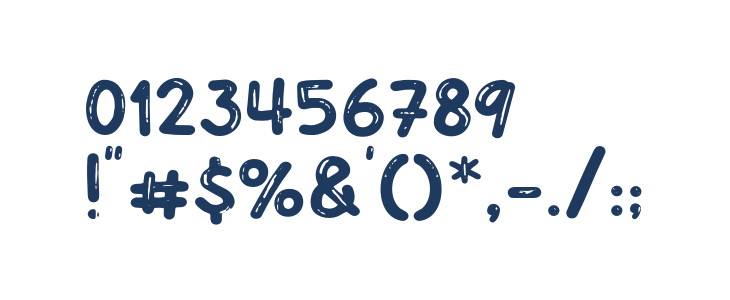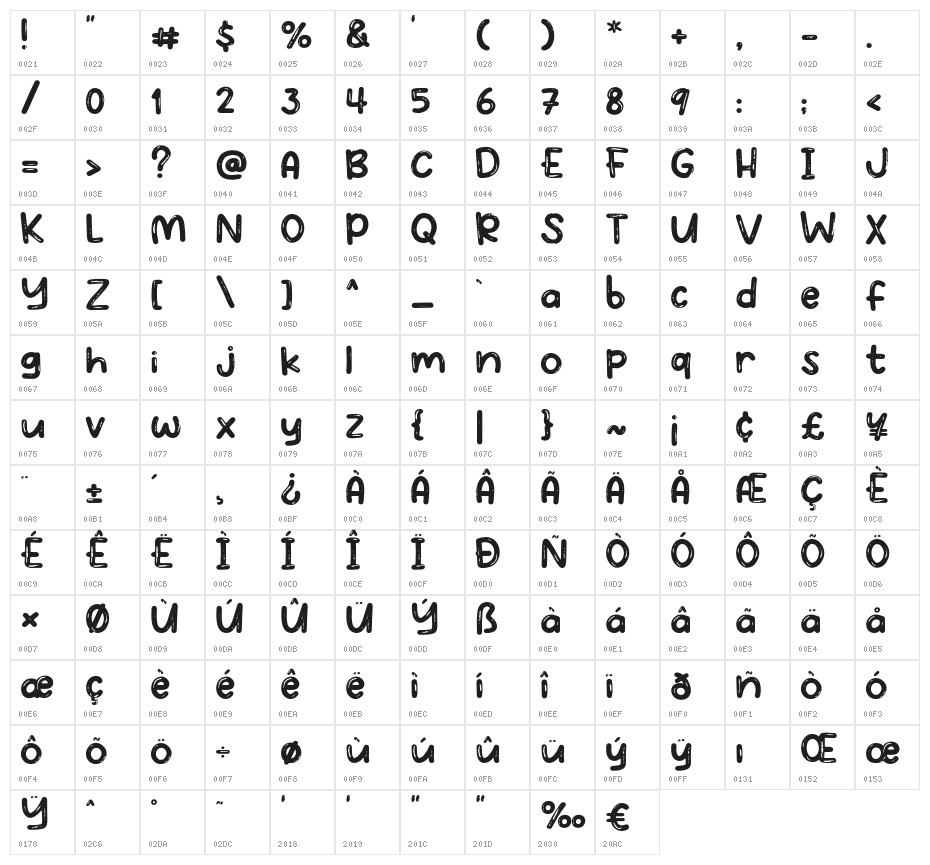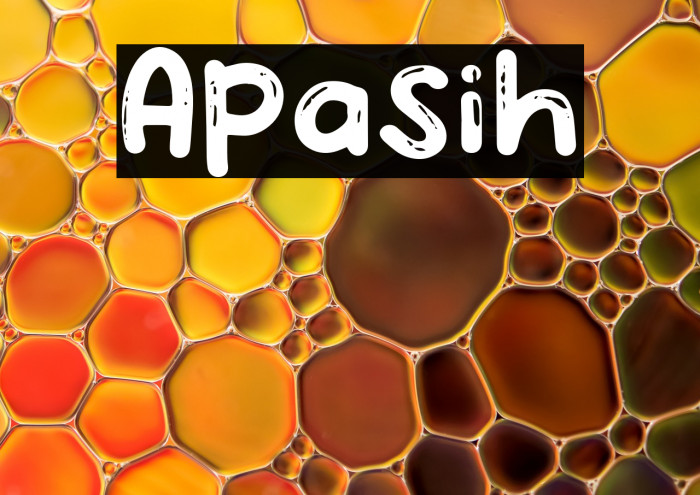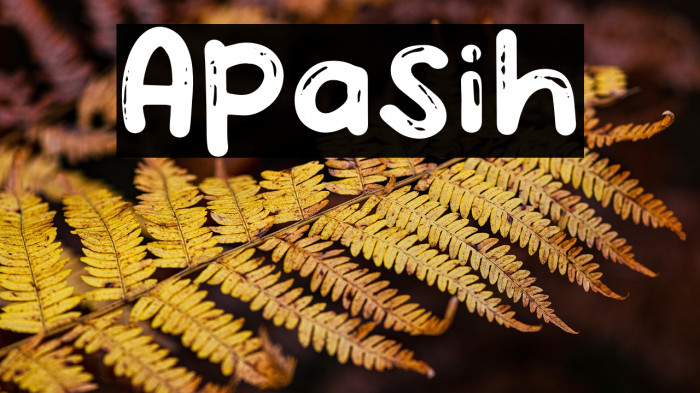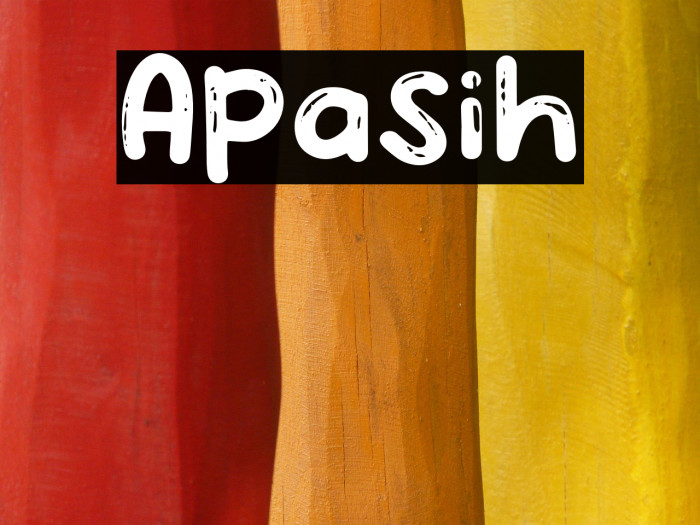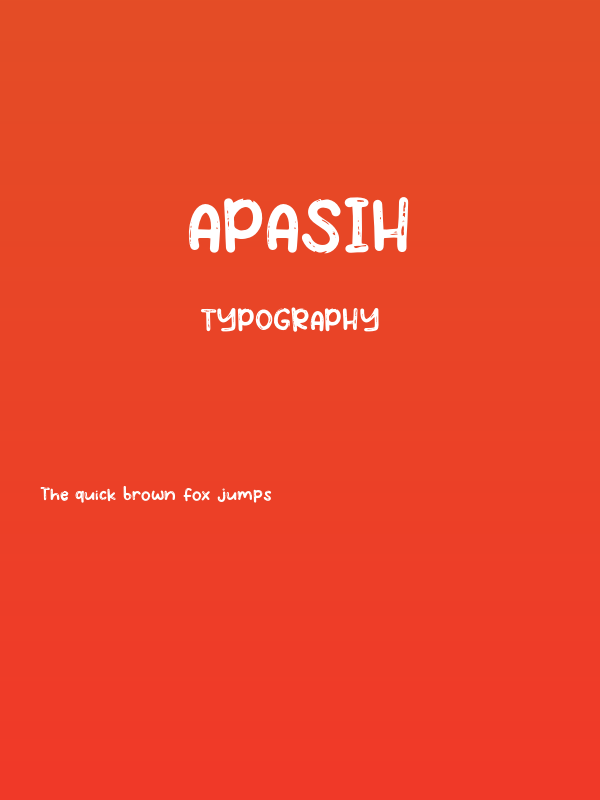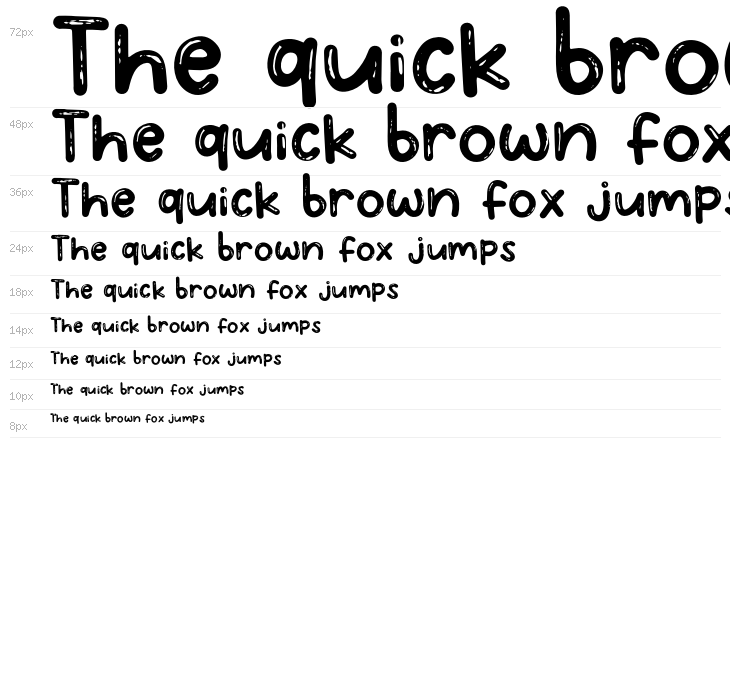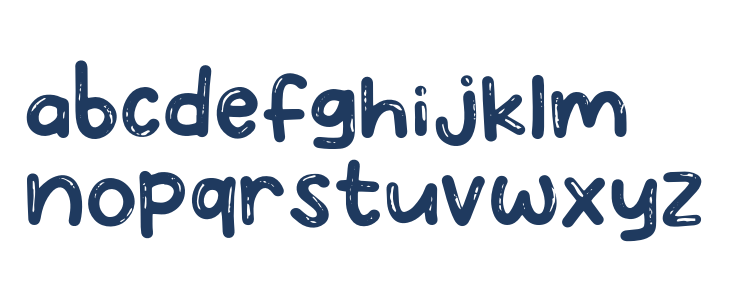
Apasih Font
Apasih Description
This playful and bold font features a hand-drawn, textured style that gives it a lively and informal appearance. The letters are rounded with a slightly uneven baseline, adding to its whimsical charm. The strokes are thick and consistent, with a subtle distressed effect that adds character and depth. This font is perfect for projects that require a fun and engaging look, such as children's books, posters, or casual branding. The numbers and special characters maintain the same playful aesthetic, ensuring a cohesive look across all text elements.
| Proposed Projects | Ideal for children's books, playful posters, casual branding, and creative invitations. |